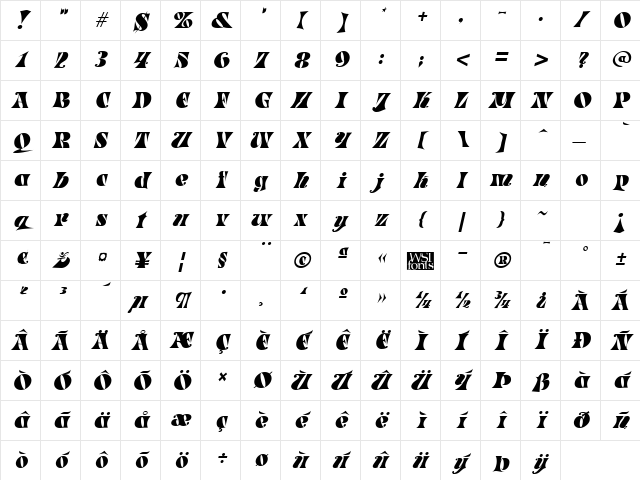
Parade kursiv
Style: kursiv
Parade Family
Design Context for Parade
Parade is a composed and adaptable typeface that performs quietly and consistently across a wide range of design contexts. The slanted form adds forward momentum and visual energy.
Pro Tip: Use Parade for emphasis, pull quotes, and subheadings where its slanted energy can add rhythm to the layout.